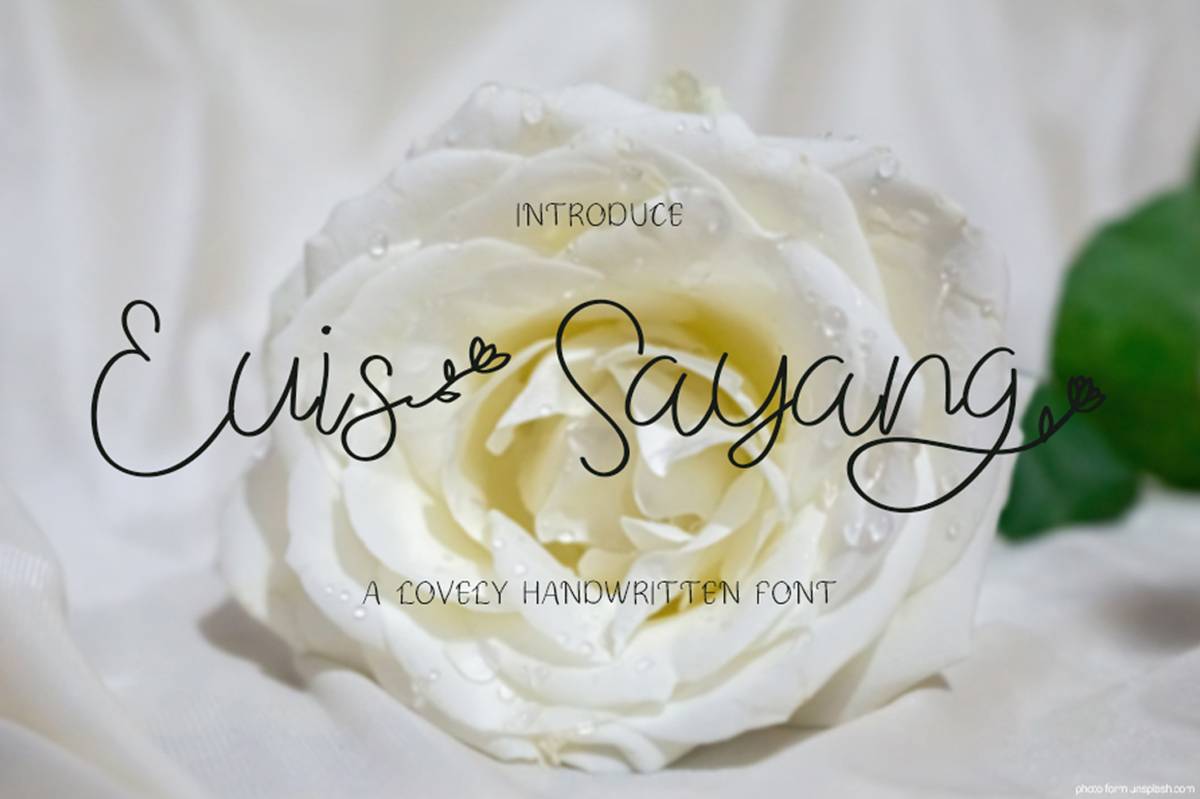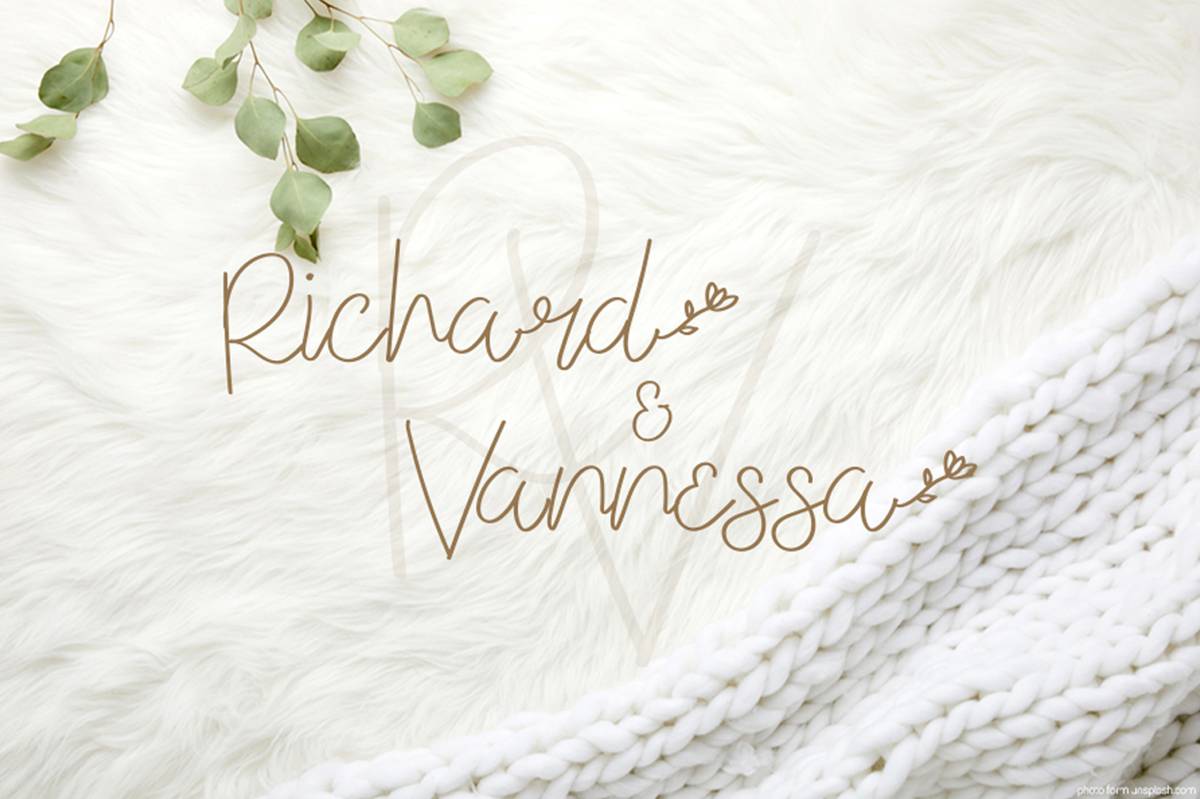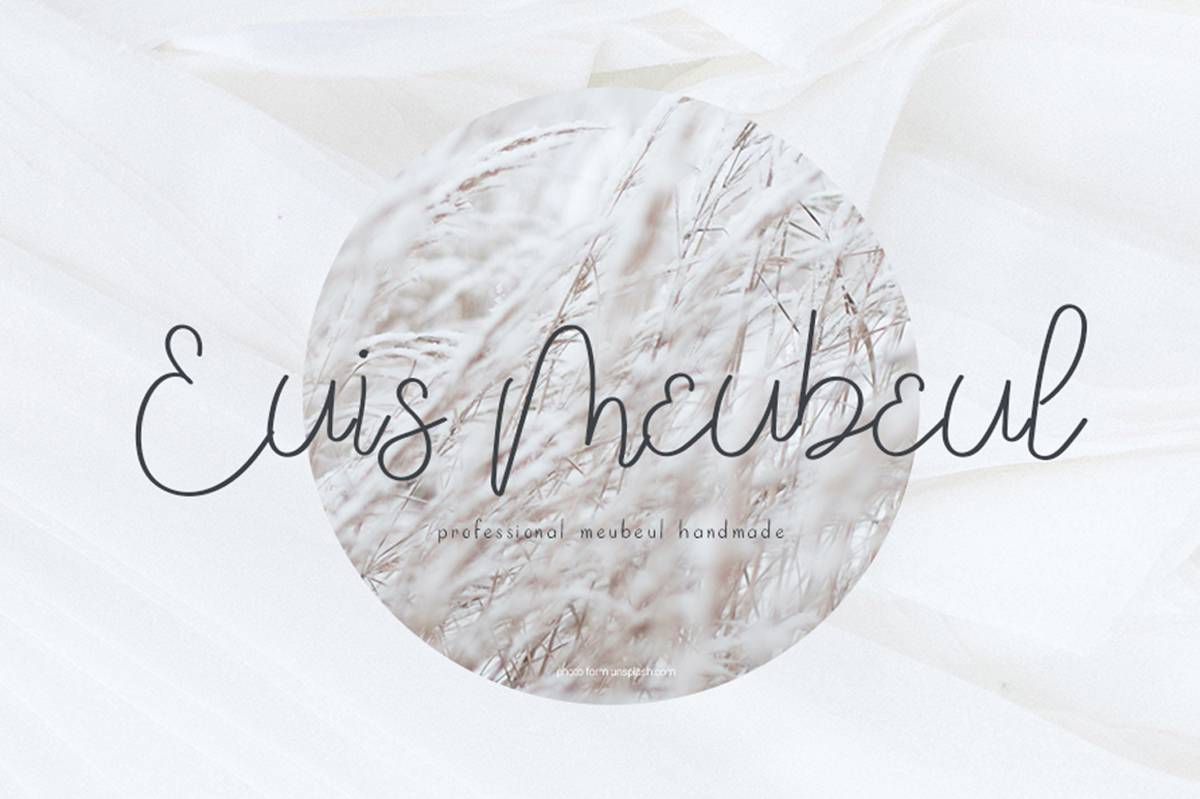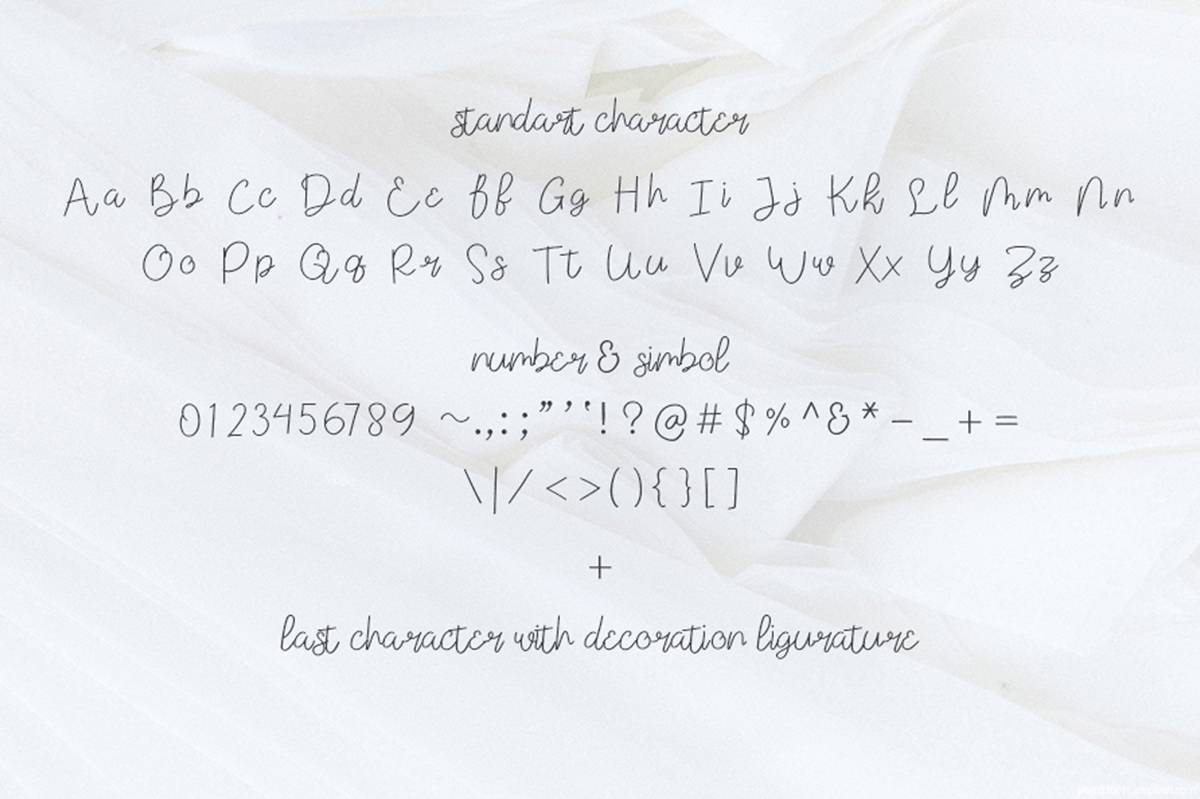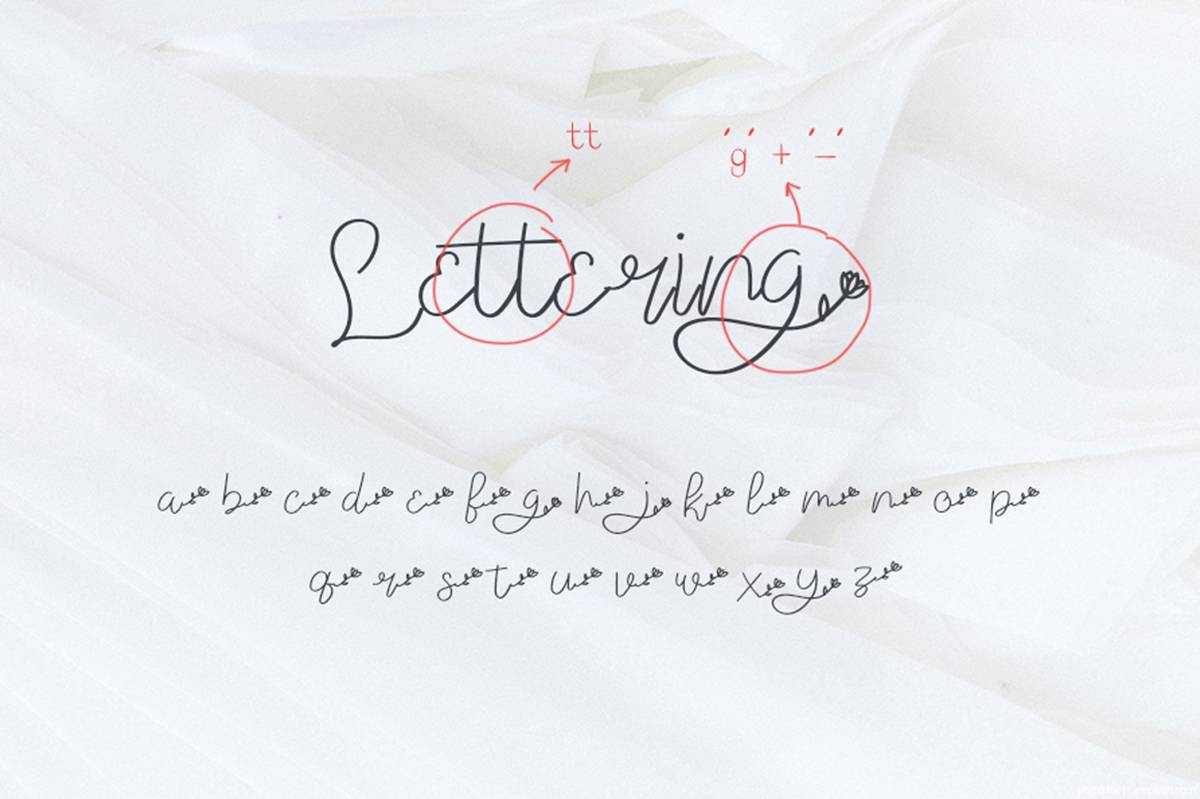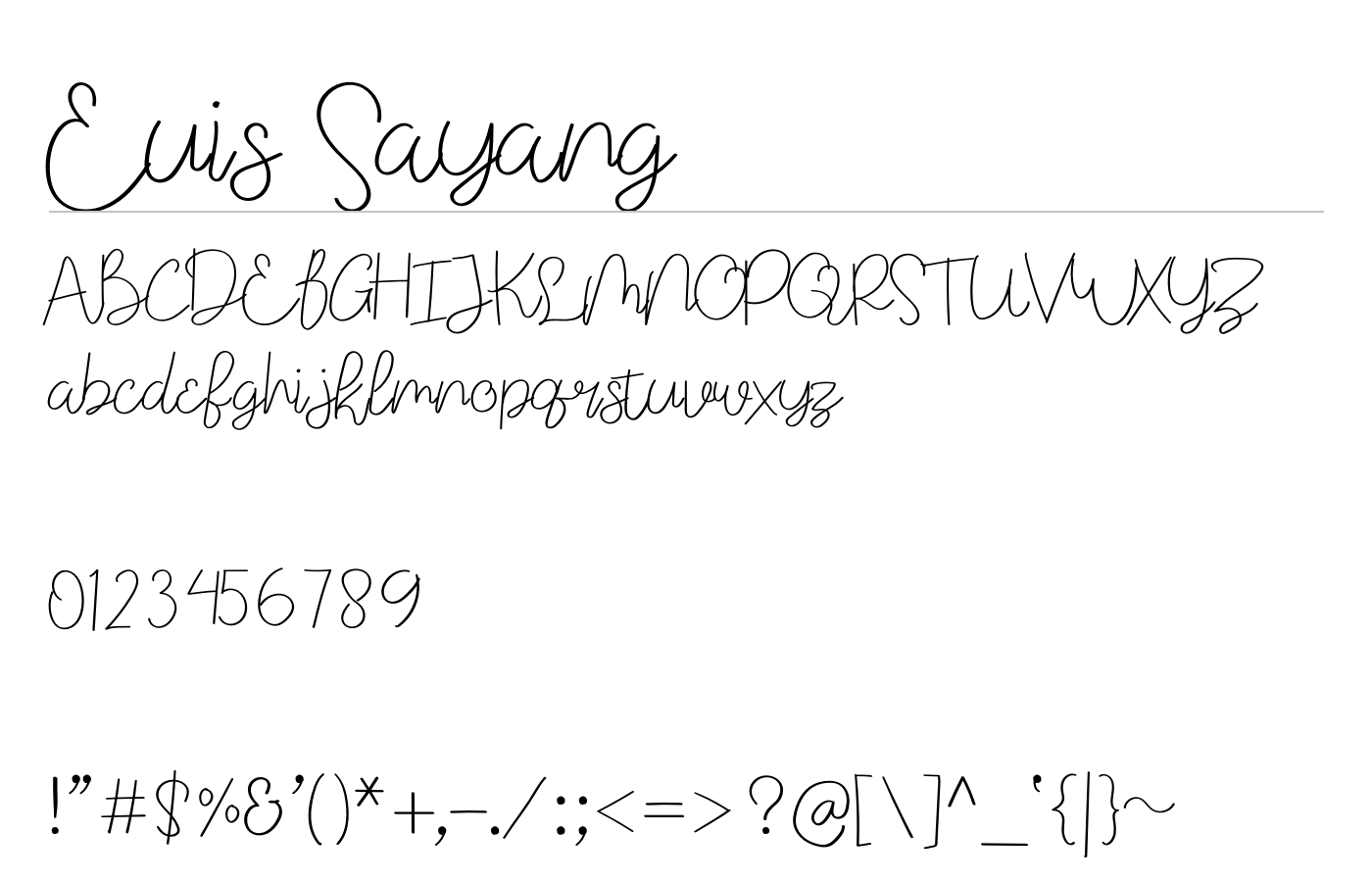
Euis Sayang is a delicate, handwritten script font characterized by its thin strokes and playful, airy letterforms. Its casual yet elegant style with a slightly quirky feel makes it perfect for personal branding, invitations, and creative projects where a warm and friendly touch is desired. This font works beautifully in headlines and decorative text, lending a charming, approachable personality to any design.
| Font family | Euis Sayang Font |
| Designer | Luthfi Fadhillah |